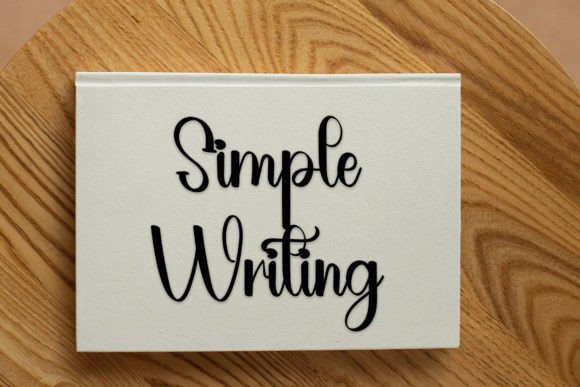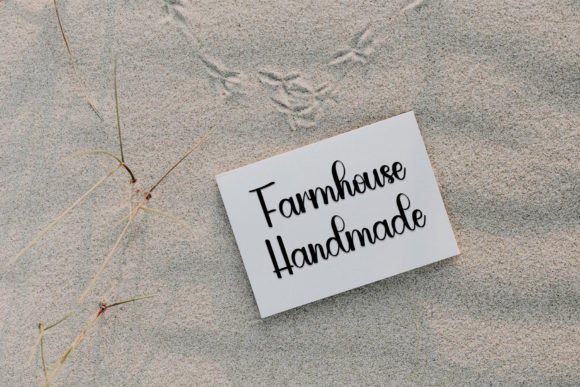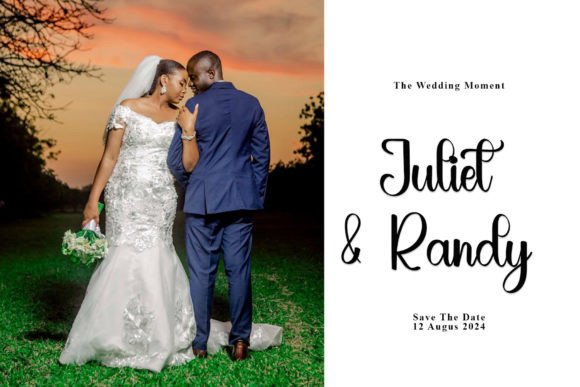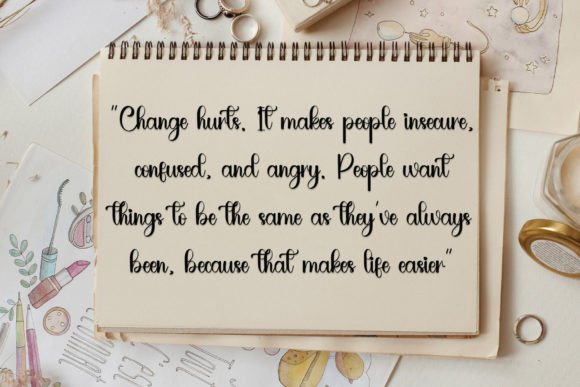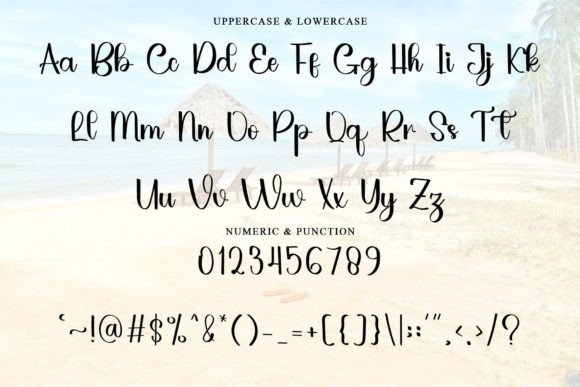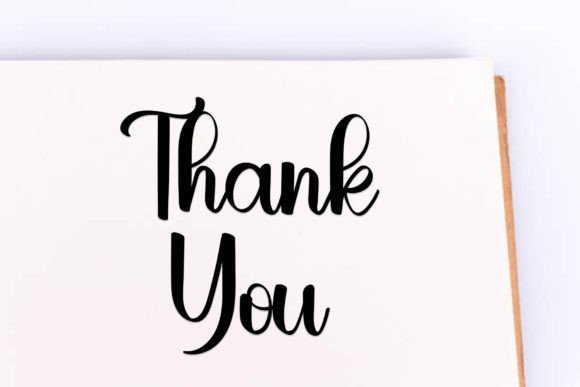
Coffee Font: Elevate Your Designs with a Touch of Elegance
Are you a designer, crafter, or DIY enthusiast looking for a unique and elegant font to elevate your creative projects? Look no further than the Coffee Font, a fun and handwritten script that adds a touch of sophistication to any design. In this article, we’ll dive into the world of Coffee Font, exploring its features, benefits, and uses, as well as provide tips and inspiration for incorporating it into your work.
What is Coffee Font?
Coffee Font is a carefully crafted handwritten font that exudes elegance and playfulness. Designed with a touch of sophistication, this font is perfect for a wide range of creative projects, from Instagram posts and stories to calligraphy scripts and DIY crafts. With its unique blend of modern and classic elements, Coffee Font is sure to turn any design into a true piece of art.
Key Features of Coffee Font
- Handwritten script: Coffee Font boasts a beautiful, handwritten script that adds a personal touch to any design.
- Elegant and playful: With its perfect balance of elegance and playfulness, Coffee Font is ideal for a wide range of creative projects.
- Versatile: Use Coffee Font for Instagram posts, calligraphy scripts, DIY projects, and more.
Benefits of Using Coffee Font
So why choose Coffee Font for your next creative project? Here are just a few benefits of using this amazing font:
- Adds a personal touch: With its handwritten script, Coffee Font adds a personal touch to any design, making it perfect for DIY projects and social media posts.
- Elevates your brand: Use Coffee Font to add a touch of elegance and sophistication to your brand’s designs, helping to establish your identity and build recognition.
- Inspires creativity: Coffee Font’s unique blend of modern and classic elements is sure to inspire your creativity and take your designs to the next level.
Using Coffee Font for Instagram and Social Media
In today’s digital age, social media is an essential platform for designers, crafters, and DIY enthusiasts to showcase their work and connect with their audience. Coffee Font is the perfect addition to your Instagram and social media designs, adding a touch of elegance and sophistication to your posts and stories.
Here are a few tips for using Coffee Font on Instagram and social media:
- Use it for quotes and captions: Add a touch of elegance to your quotes and captions with Coffee Font, making them stand out in a crowded feed.
- Create stunning graphics: Use Coffee Font to create stunning graphics, such as posters, flyers, and brochures, that showcase your designs and creativity.
- Develop a brand identity: Establish your brand’s identity and build recognition by using Coffee Font consistently across your social media platforms.
Using Coffee Font for Calligraphy and DIY Projects
Coffee Font is not just limited to digital designs; it’s also perfect for calligraphy and DIY projects. With its beautiful handwritten script, Coffee Font adds a touch of elegance and sophistication to any craft or DIY project.
Here are a few ideas for using Coffee Font in calligraphy and DIY projects:
- Create stunning calligraphy pieces: Use Coffee Font to create stunning calligraphy pieces, such as quotes, poems, and phrases, that make beautiful additions to your home or office.
- Make personalized gifts: Add a personal touch to your gifts, such as cards, invitations, and gift tags, with Coffee Font.
- Develop a craft project: Use Coffee Font to develop a craft project, such as a journal, planner, or scrapbook, that showcases your creativity and personality.
In conclusion, Coffee Font is a fun and elegant handwritten font that’s perfect for designers, crafters, and DIY enthusiasts. With its unique blend of modern and classic elements, Coffee Font adds a touch of sophistication to any design, making it ideal for a wide range of creative projects. Whether you’re looking for fonts for Instagram or calligraphy scripts for DIY projects, Coffee Font is sure to turn any creative idea into a true piece of art!